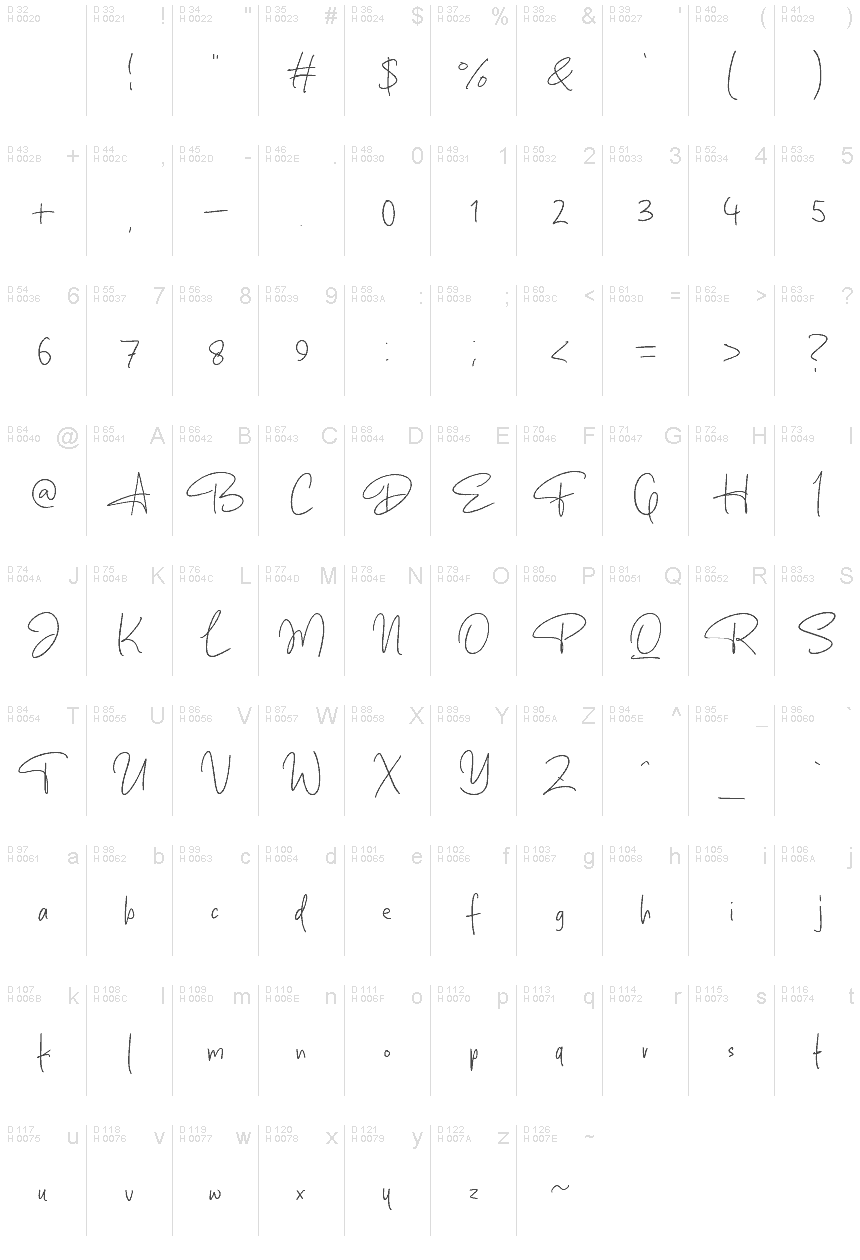
The Mastah
The Mastah font by MJType is a light, handwritten free font that combines elegance with contemporary charm. Its expressive, flowing style carries an informal elegance perfect for modern designs seeking a personal touch, embodying just the right amount of calligraphic influence.
Personal branding, event invitations, greeting cards, social media graphics, logos, wedding stationery items such as envelopes and menu covers are only some of its use cases. Use it also for print designs like certificates or posters among others.